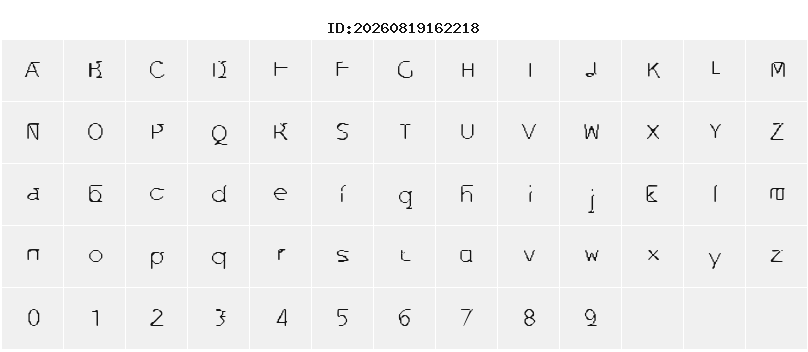
Signal XOR Preview
Signal XOR.ttf is a modern, elegant sans-serif font designed for ultimate readability and visual harmony. Perfect for branding, headlines, web design, and print materials.